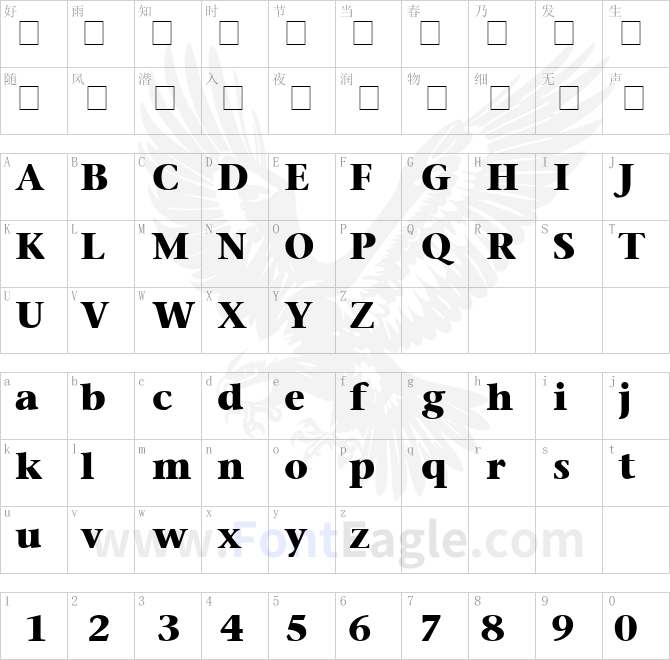
- Font name:Mesouran Serif Black SSi
- Font Subfamily ID:FontMonger:Mesouran Serif Black SSi Bold
- Font Full Name:Mesouran Serif Black SSi Bold
- Postscript:MesouranSerifBlackSSiBold